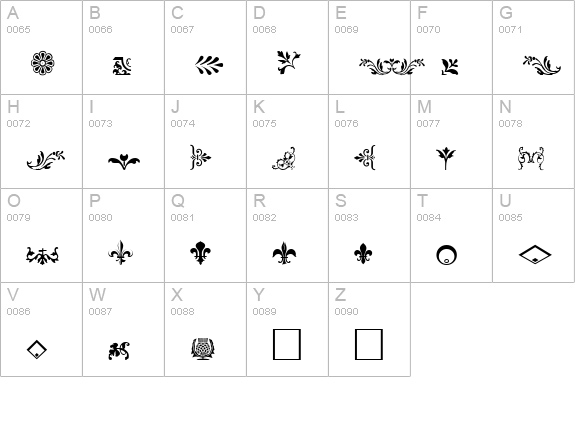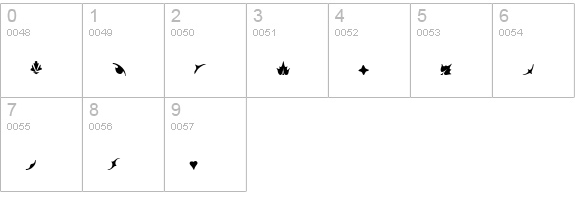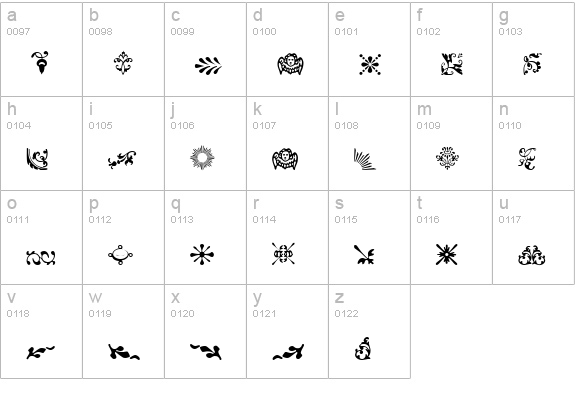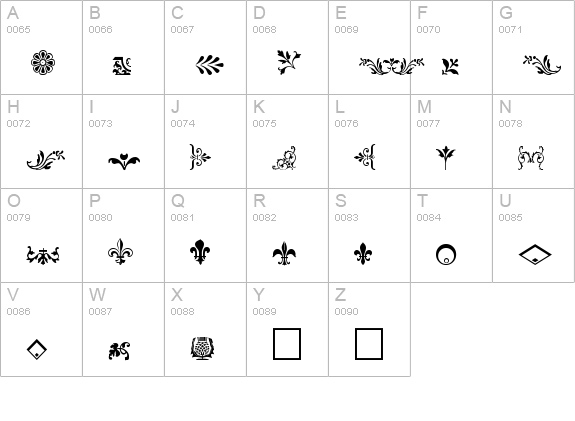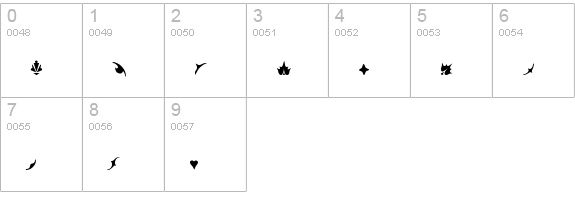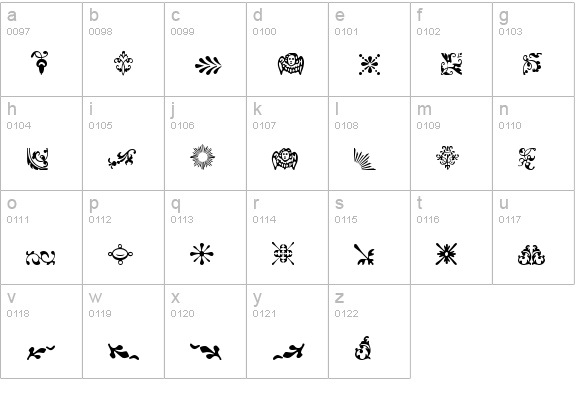
Fleurons font is a timeless and elegant typeface that brings a touch of sophistication to any design project. Its intricate floral ornaments and delicate flourishes add a sense of beauty and charm to your typography. Whether you're looking to add a touch of luxury to invitations, stationery, or branding materials, Fleurons font is the perfect choice. And the best part? Fleurons font is completely free to download at FontsMarket.com. You can easily access this exquisite font and elevate your designs with its classic and refined style. Don't miss out on the opportunity to enhance your projects with Fleurons font's graceful and ornate elements. Download it today and add a touch of elegance to your creations.